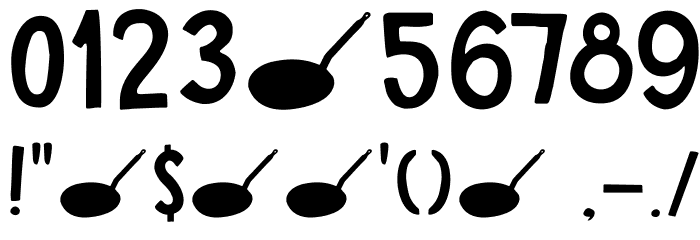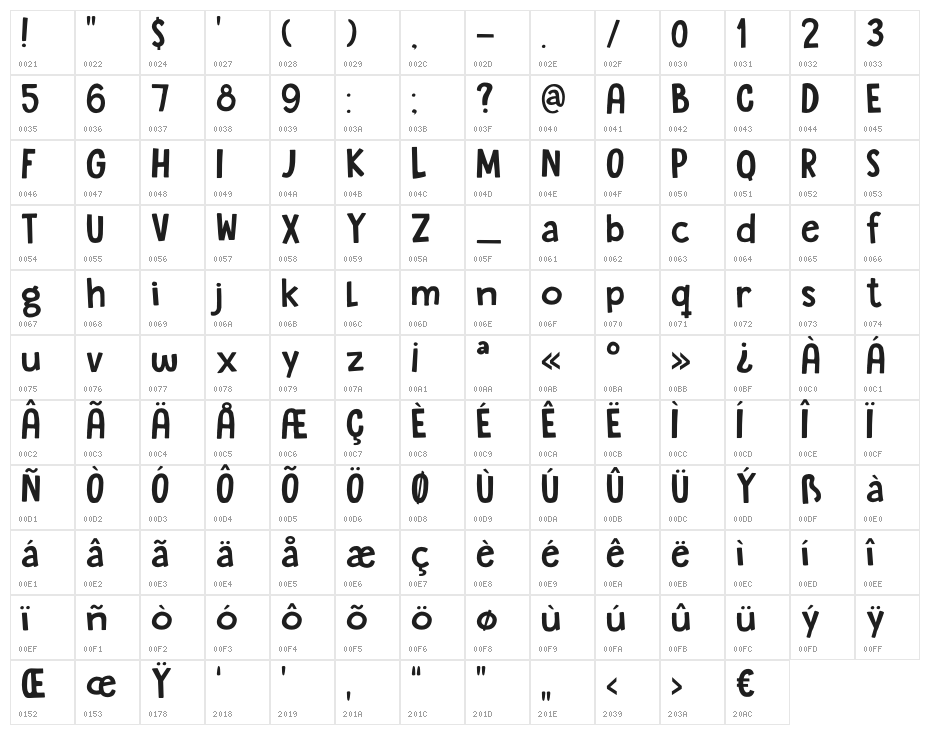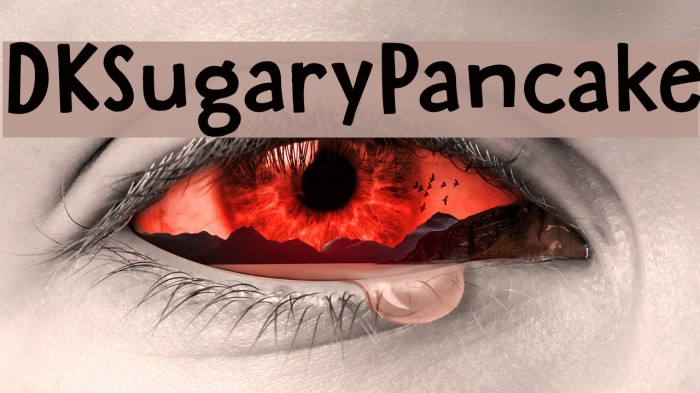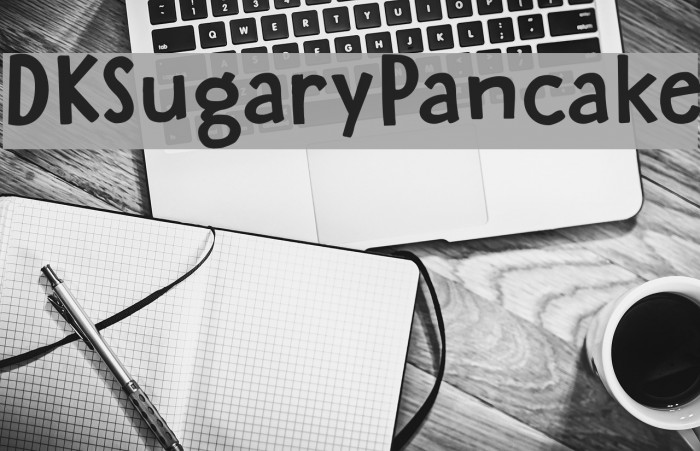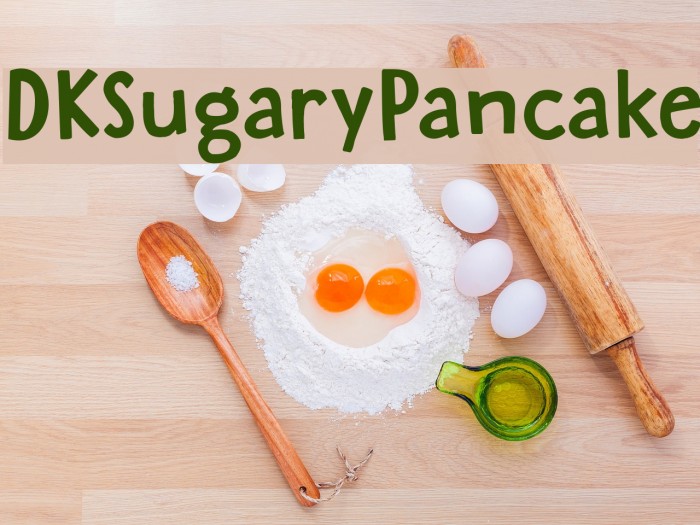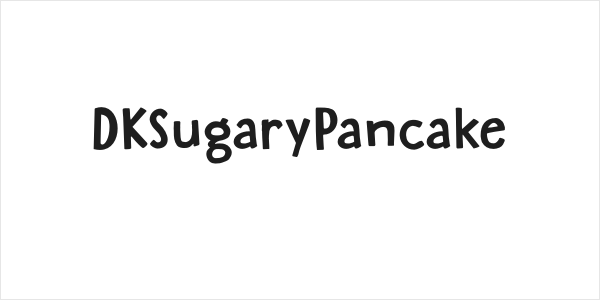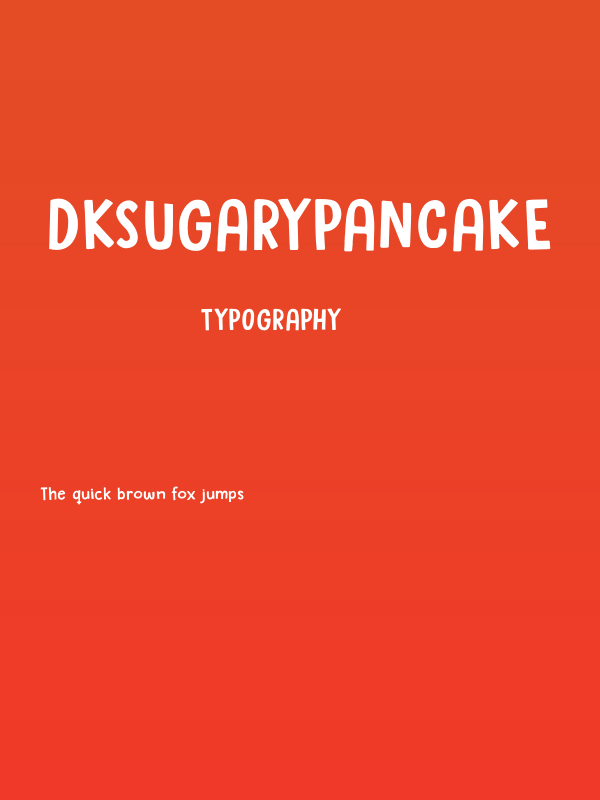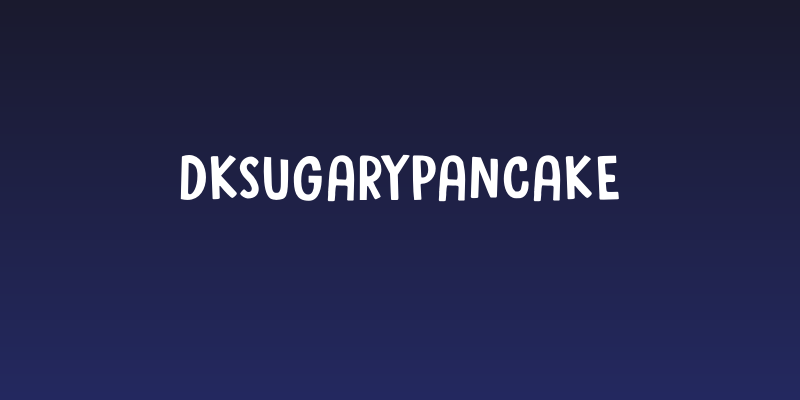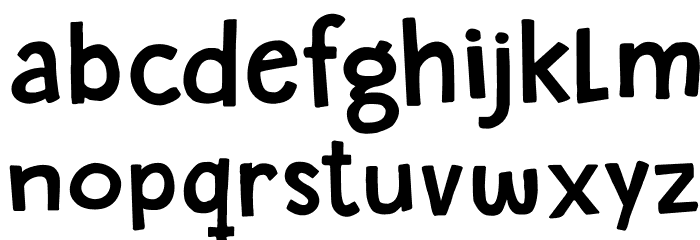
DKSugaryPancake Font
DKSugaryPancake Description
This playful and whimsical font features bold, rounded characters with a hand-drawn aesthetic. The letters are slightly irregular, giving a casual and friendly appearance. The uppercase and lowercase letters maintain a consistent style, with the lowercase being slightly more compact. Numbers and special characters follow the same playful design, with unique elements like a frying pan symbol adding to its charm. The overall look is approachable and fun, making it suitable for creative and informal projects.